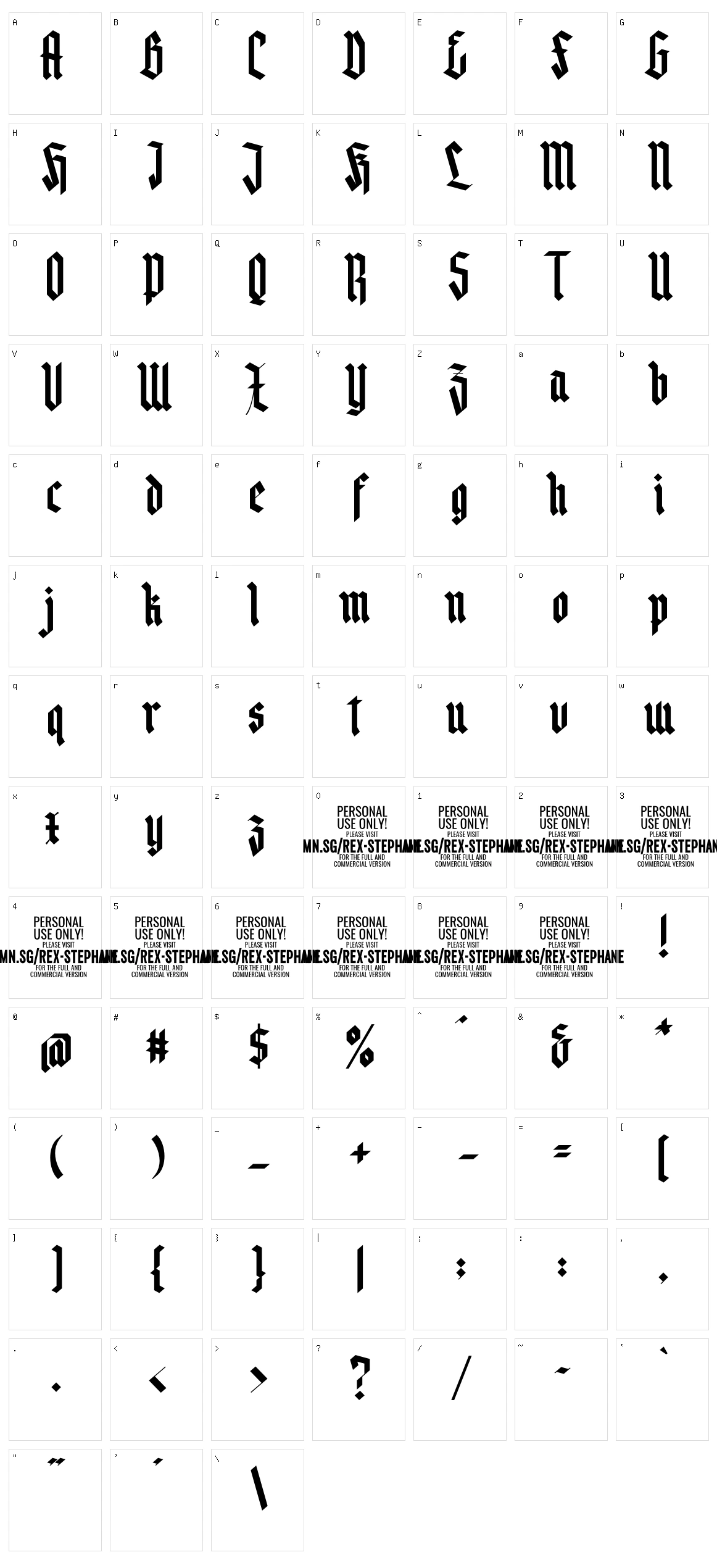
Rex Stephane
Designed by: Mans Greback
Rex Stephane, designed by Mans Greback, is a striking blackletter font that artfully blends medieval influences with modern geometric shapes. Inspired by the tall stature of Gothic architecture, merged with sharpened edges, this font captures the essence of strict ruling while having an elegance of the Middle Ages.
First imagined while exploring an abandoned castle, the typeface is based on ancient manuscripts adorned with calligraphic lettering. These texts became the foundation for Rex Stephane, as Mans Greback aimed to recreate the rich history and grandeur of the medieval era while adding his own contemporary twist.
The font is built with advanced OpenType functionality and has a guaranteed top-notch quality, containing stylistic and contextual alternates, ligatures, and more features; all to give you full control and customizability. It has extensive lingual support, covering all Latin-based languages, from Northern Europe to South Africa, from America to South-East Asia. It contains all characters and symbols you'll ever need, including all punctuation and numbers.
Mans Greback is a Swedish typeface designer with a passion for creating unique and versatile fonts. With an extensive background in design and typography, Mans has built a reputation for his meticulous attention to detail and prolific craftsmanship. His many fonts are widely used by designers around the world, making his work synonymous with creativity and innovation.